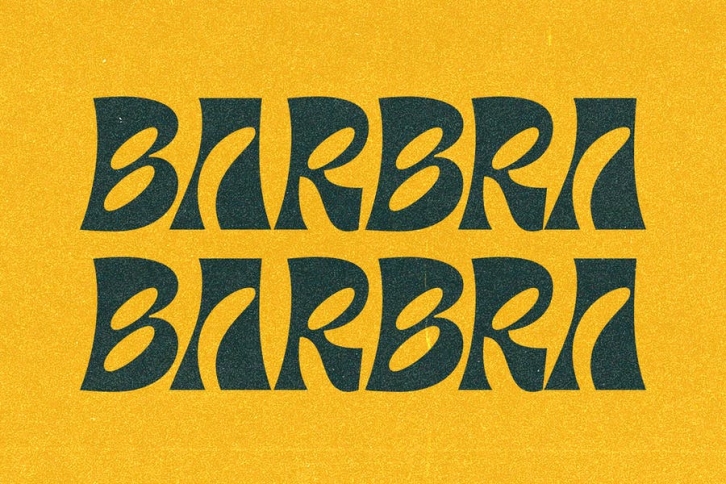
Barbra is a display font family with unique letterforms and harmonization. It's bold yet in high contrast. Brutalist yet gorgeus and emotional.
A reason why Barbra is emotional and very personal. While I developed Barbra, my mom passed away. It's broken my heart. So I tried to represent my mixed feeling in Barbra with the expressive curve in each letterform. Up and down, right to the left.
So here we are, Barbra. The uppercase will make your headline stand out, fresh, and organic, even when you use it for your next logo project.
While the lowercase is designed to make a harmonization when you put in words or sentences.